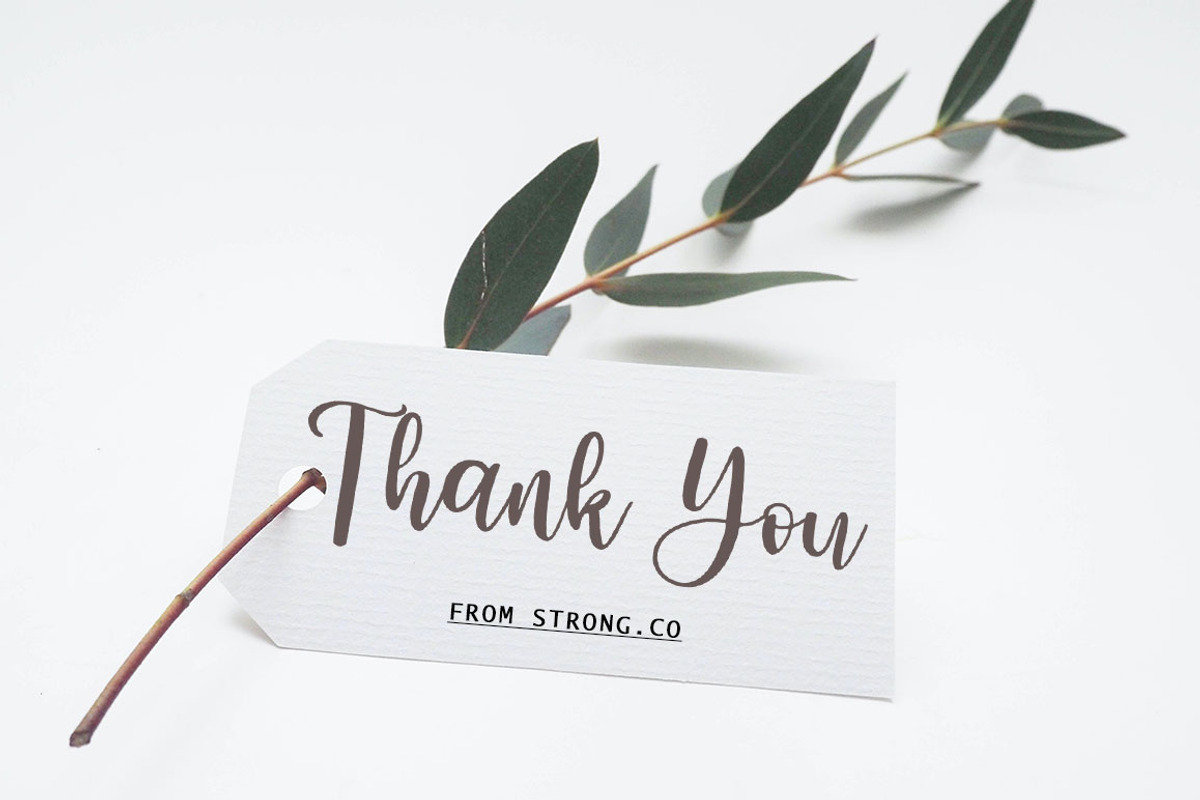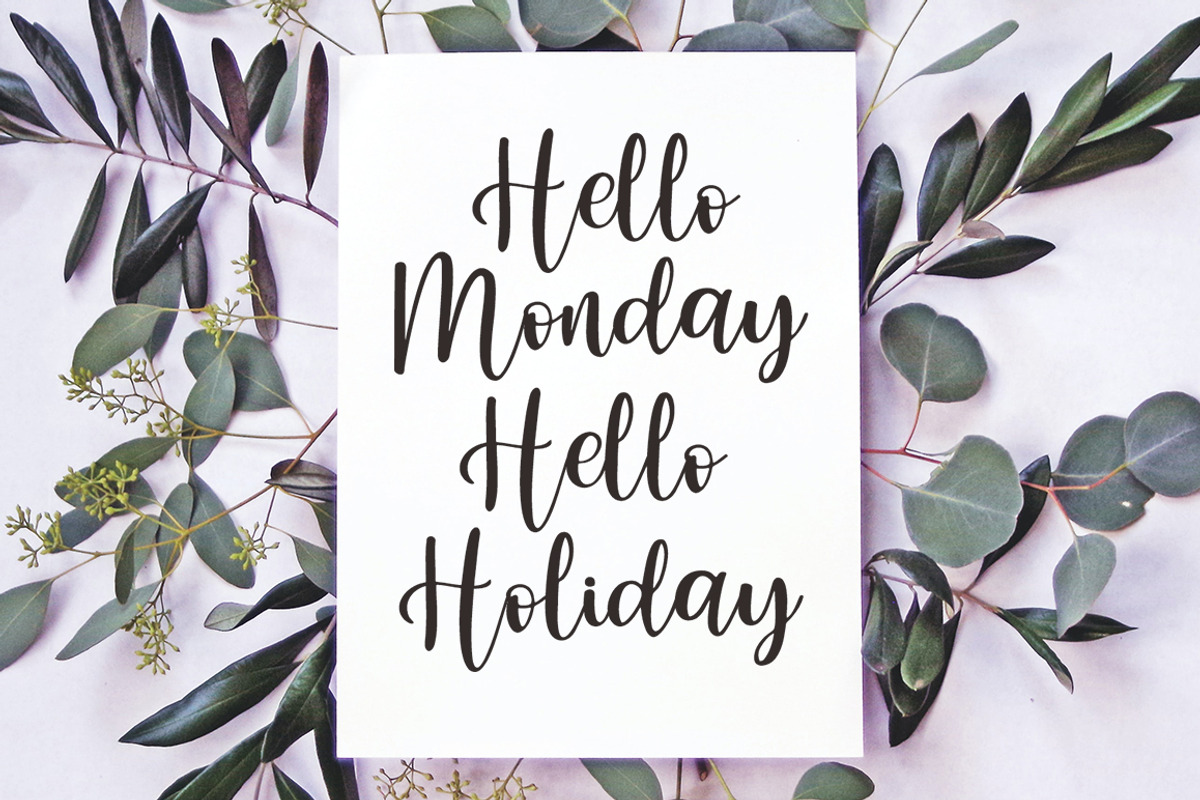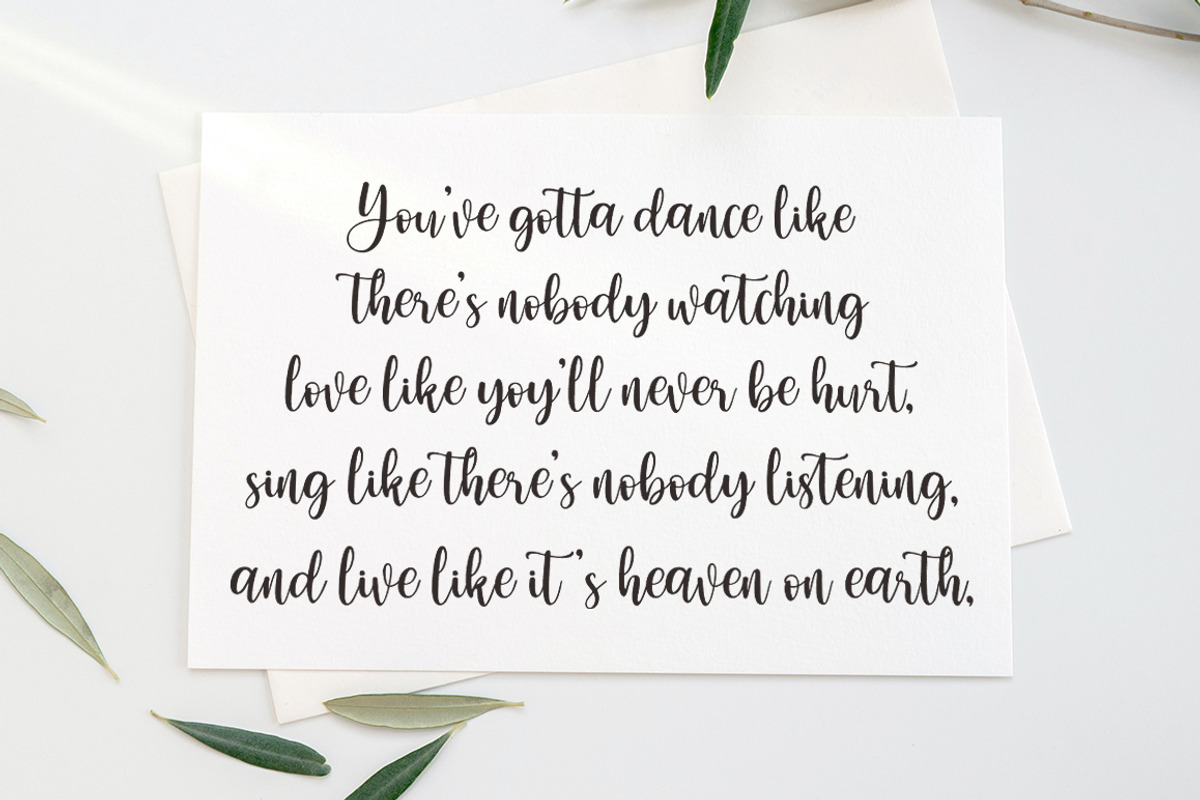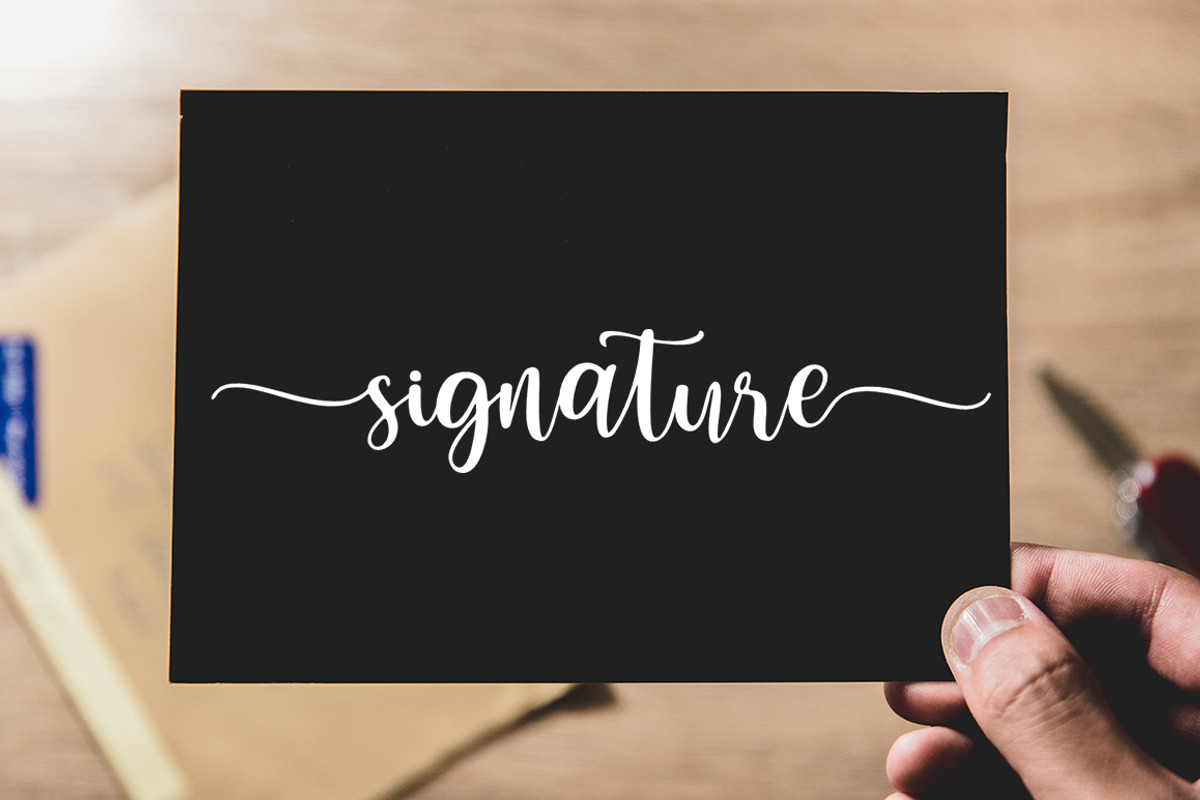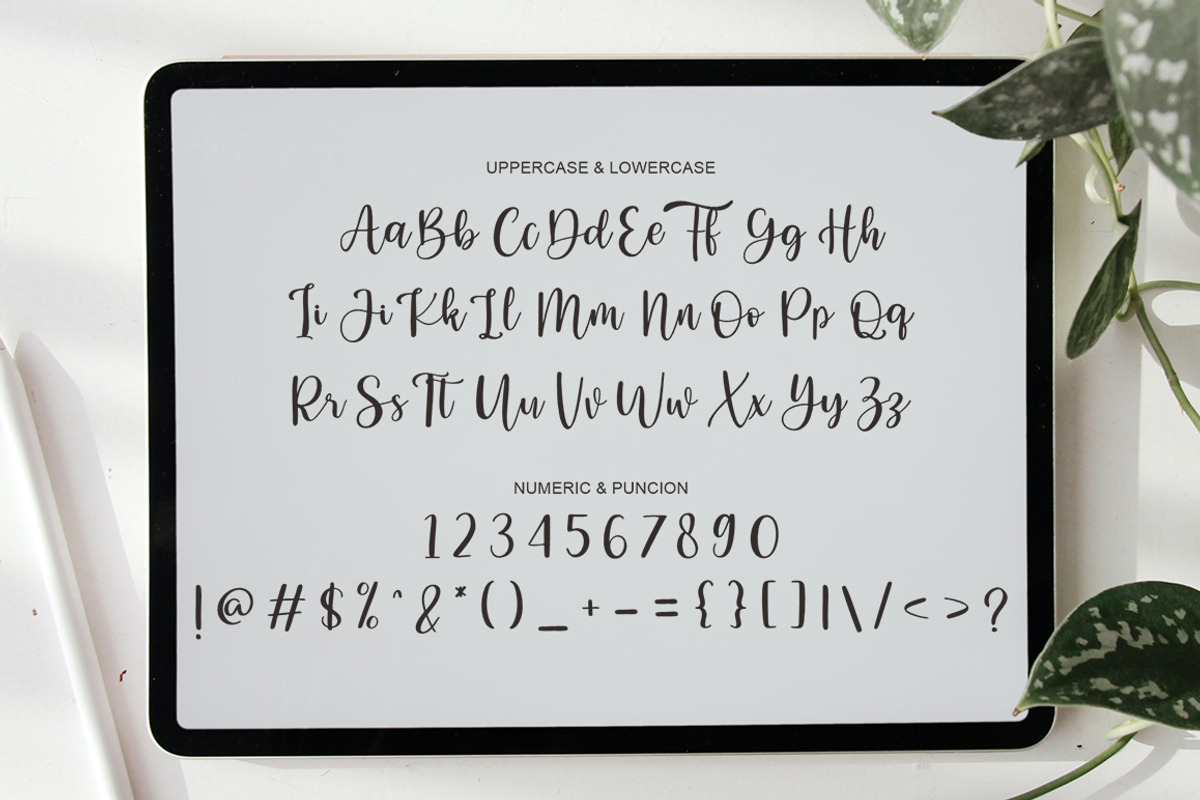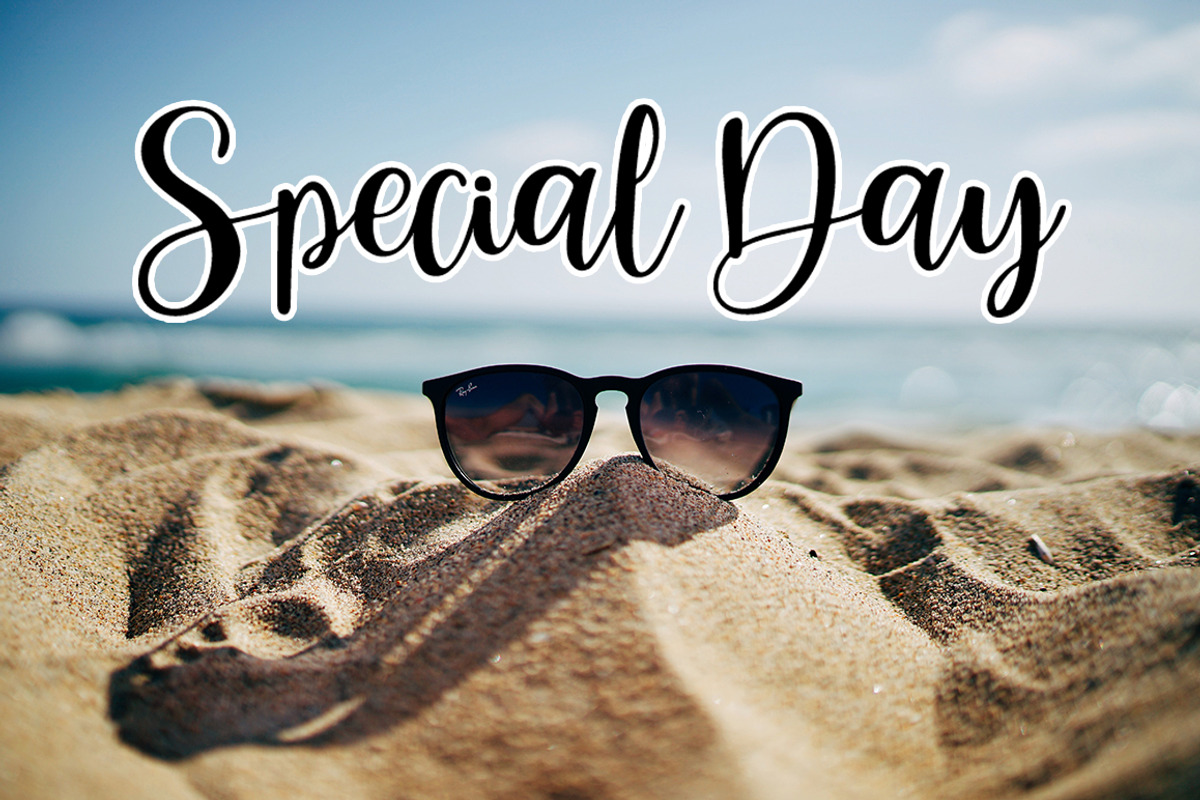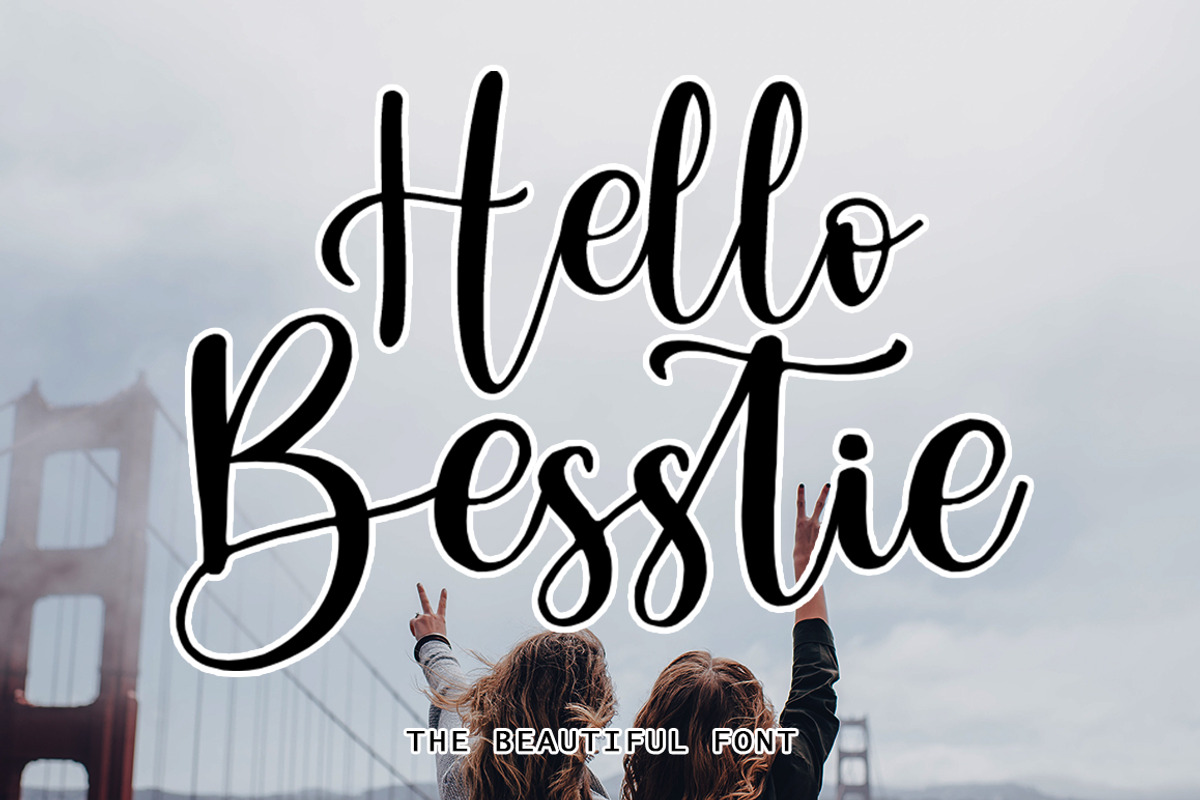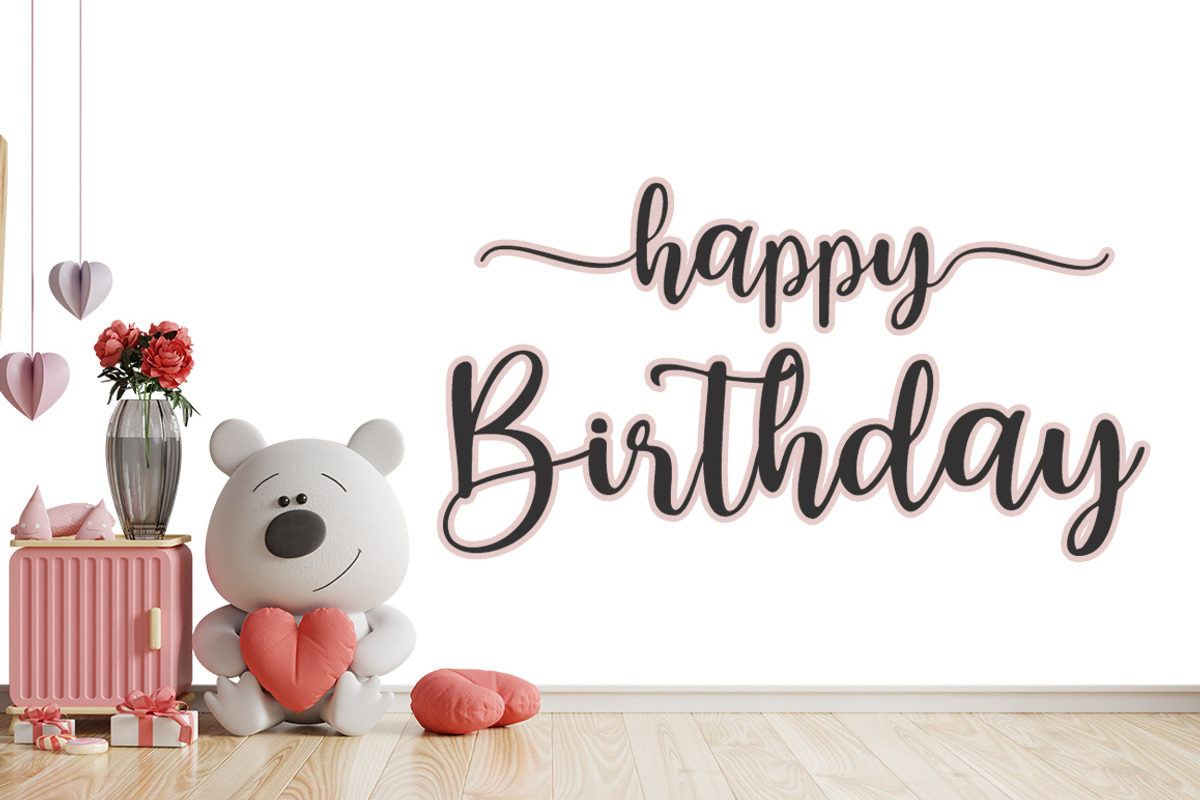
Hello Besstie
Hello Besstie is a very beautiful, elegant and unique script font. Expertly designed to be a true favorite, this font has the potential to take your creative ideas to the highest level!
Hello Besstie is attractive because it is sleek, clean, feminine, sensual, glamorous, simple and easy to read, thanks to its many luxurious letter connections. I also offer a number of viable alternative styles for all letters. The classic style is perfect for applying in various formal forms such as invitations, labels, restaurant menus, logos, fashion, makeup, stationery, novels, magazines, books, greeting/wedding cards, packaging, labels or any type of advertising. for your needs. . .